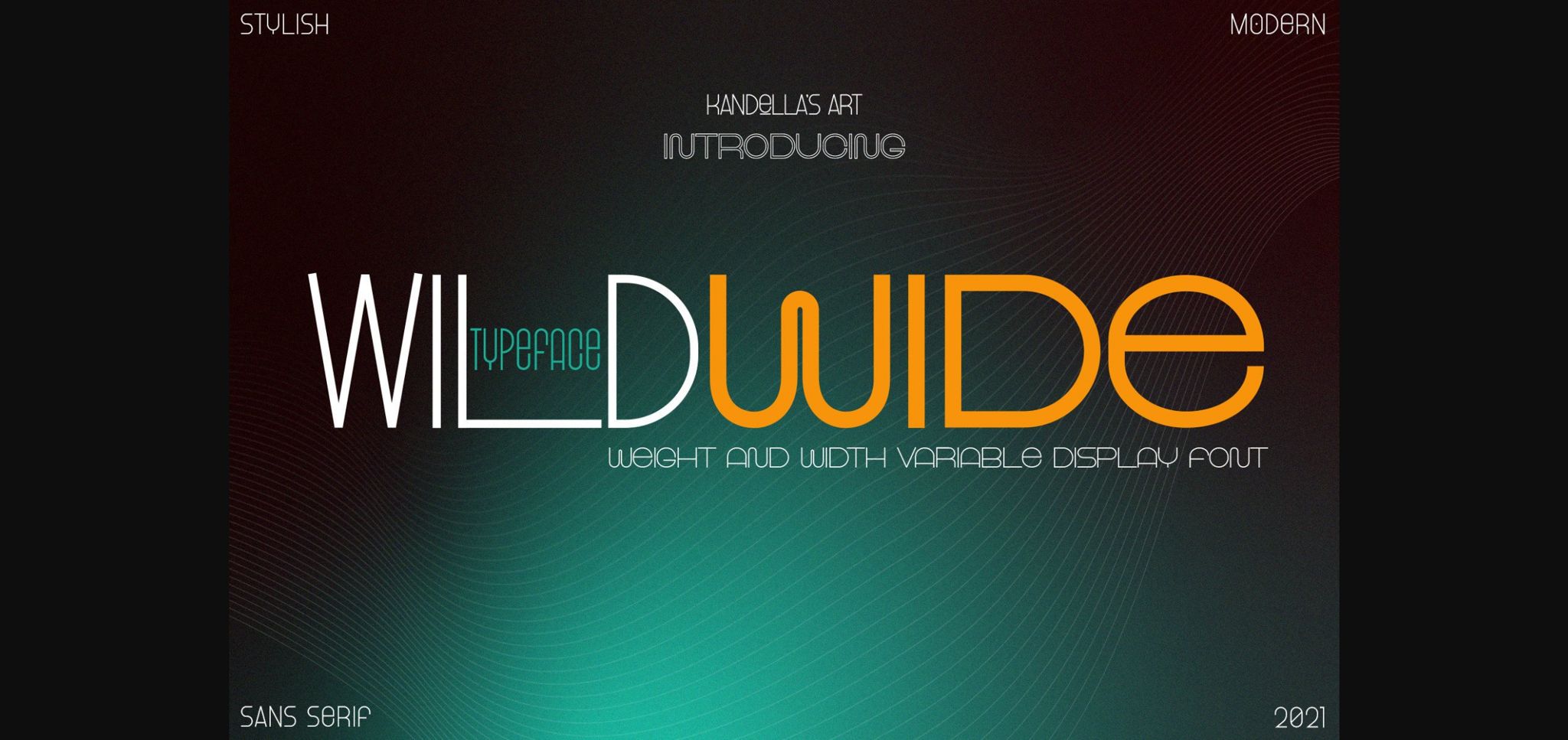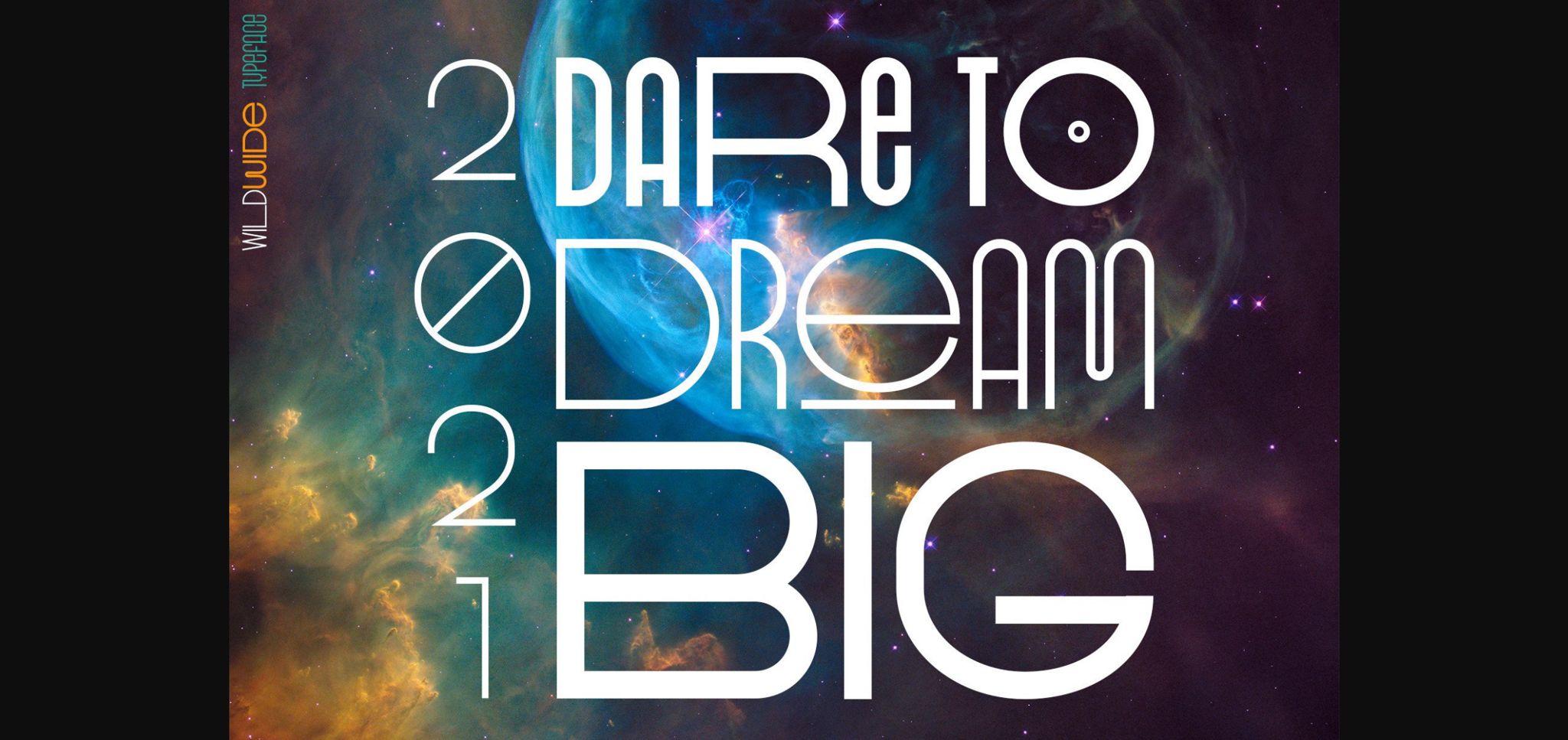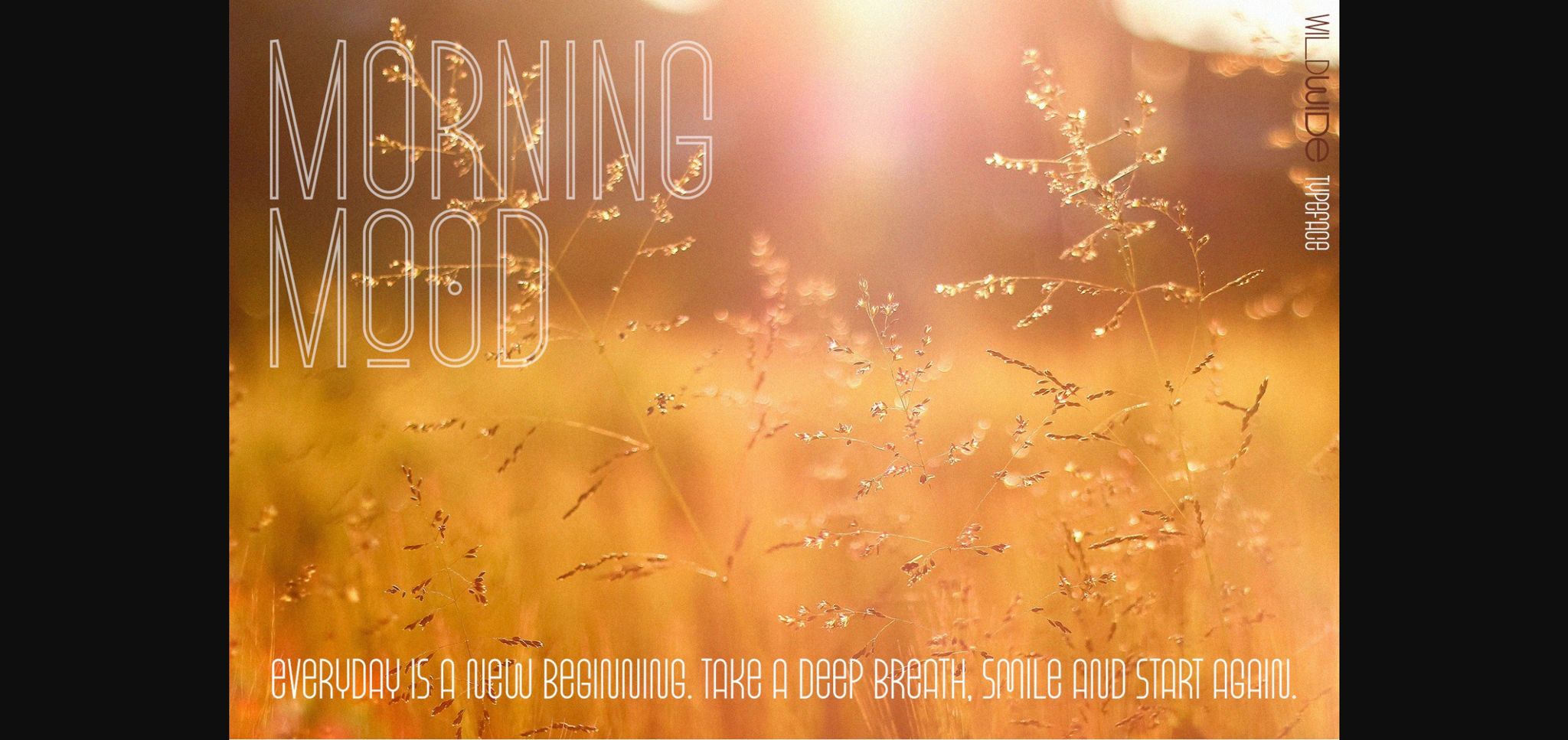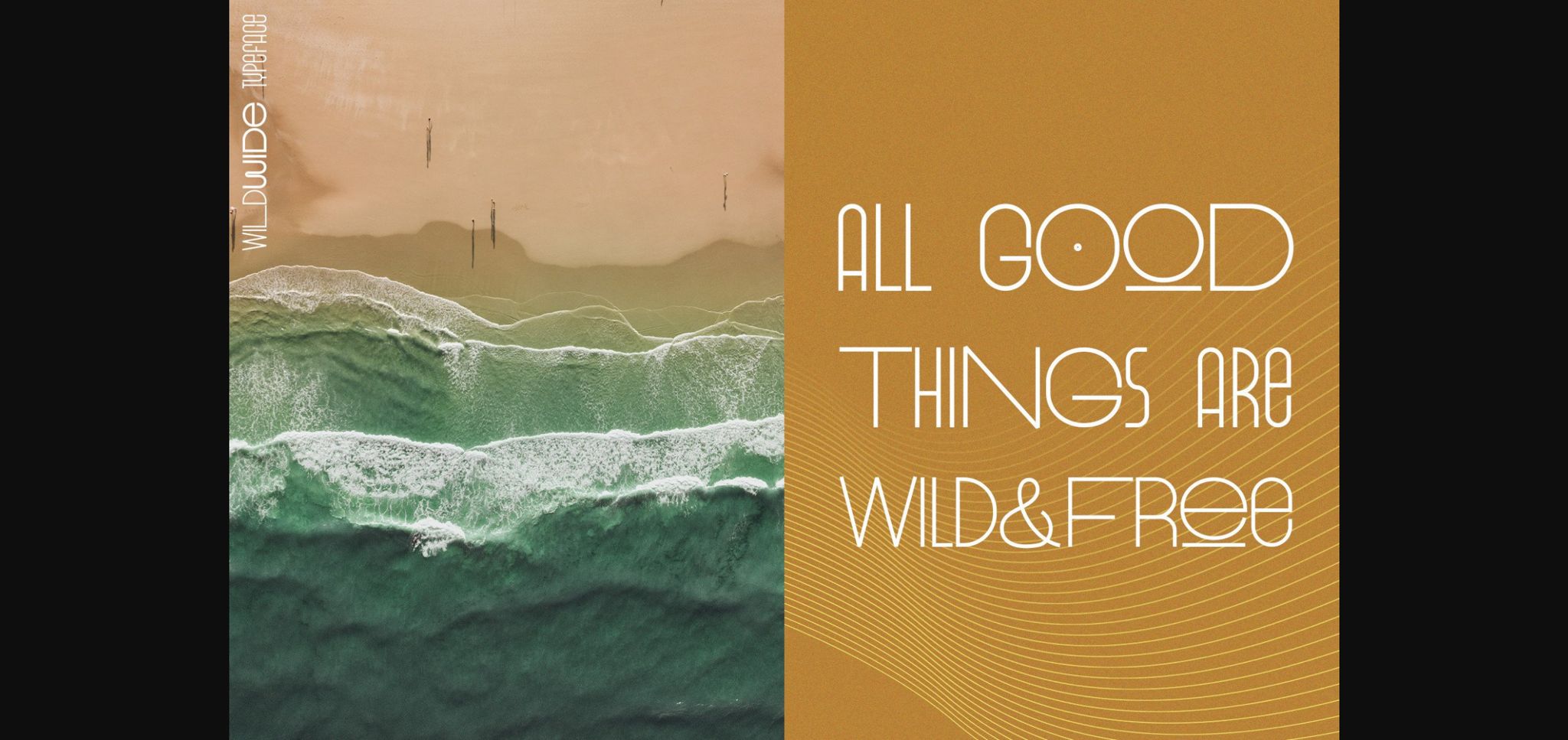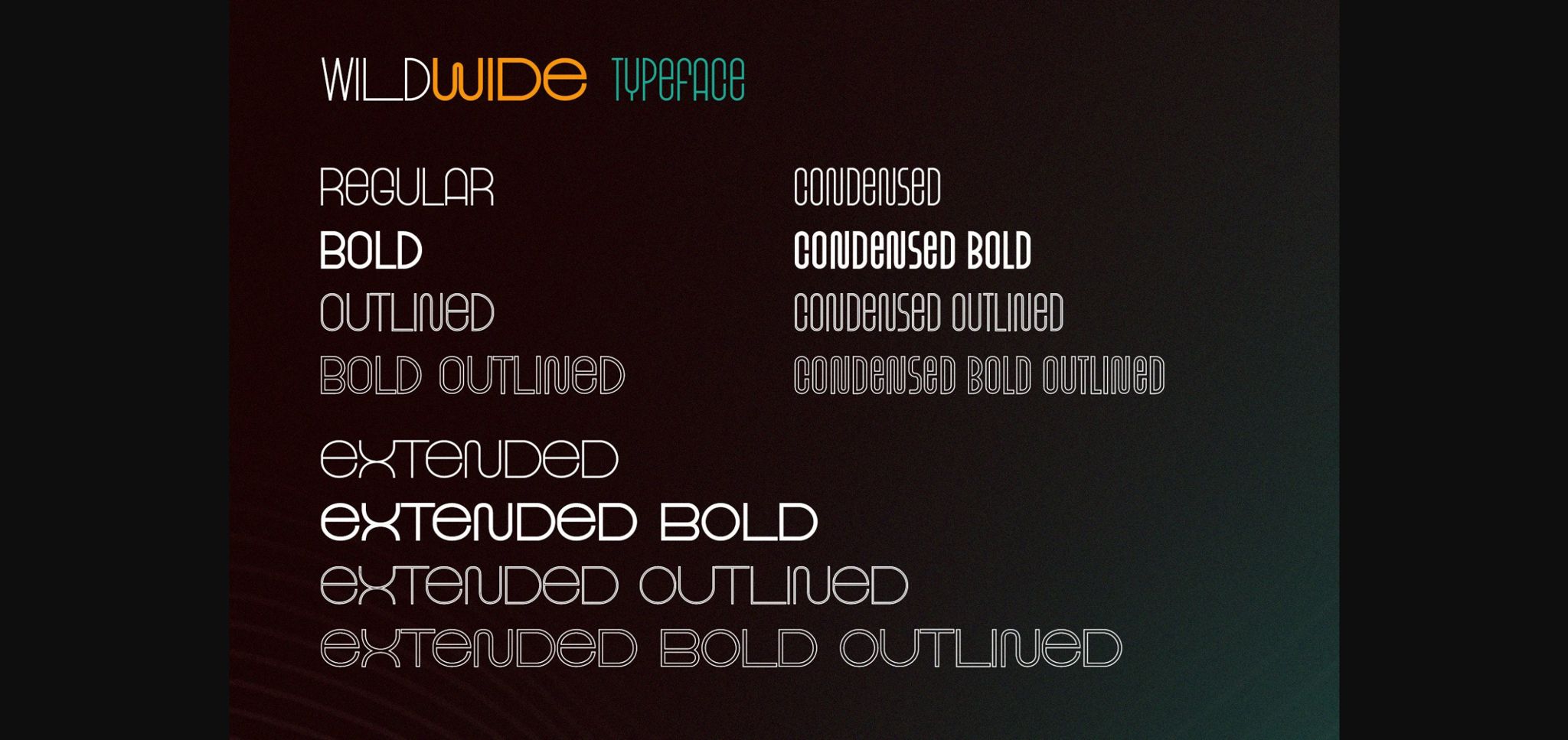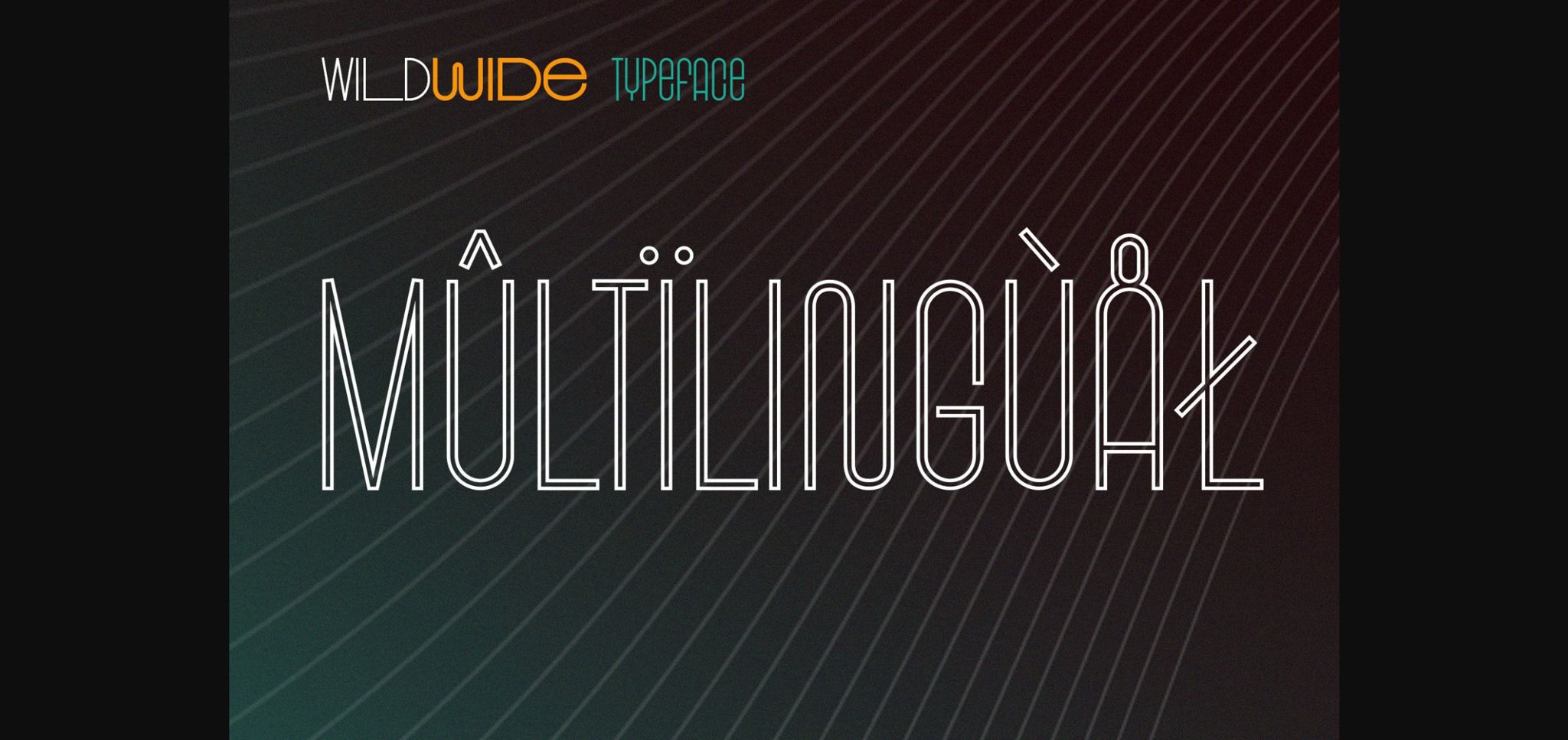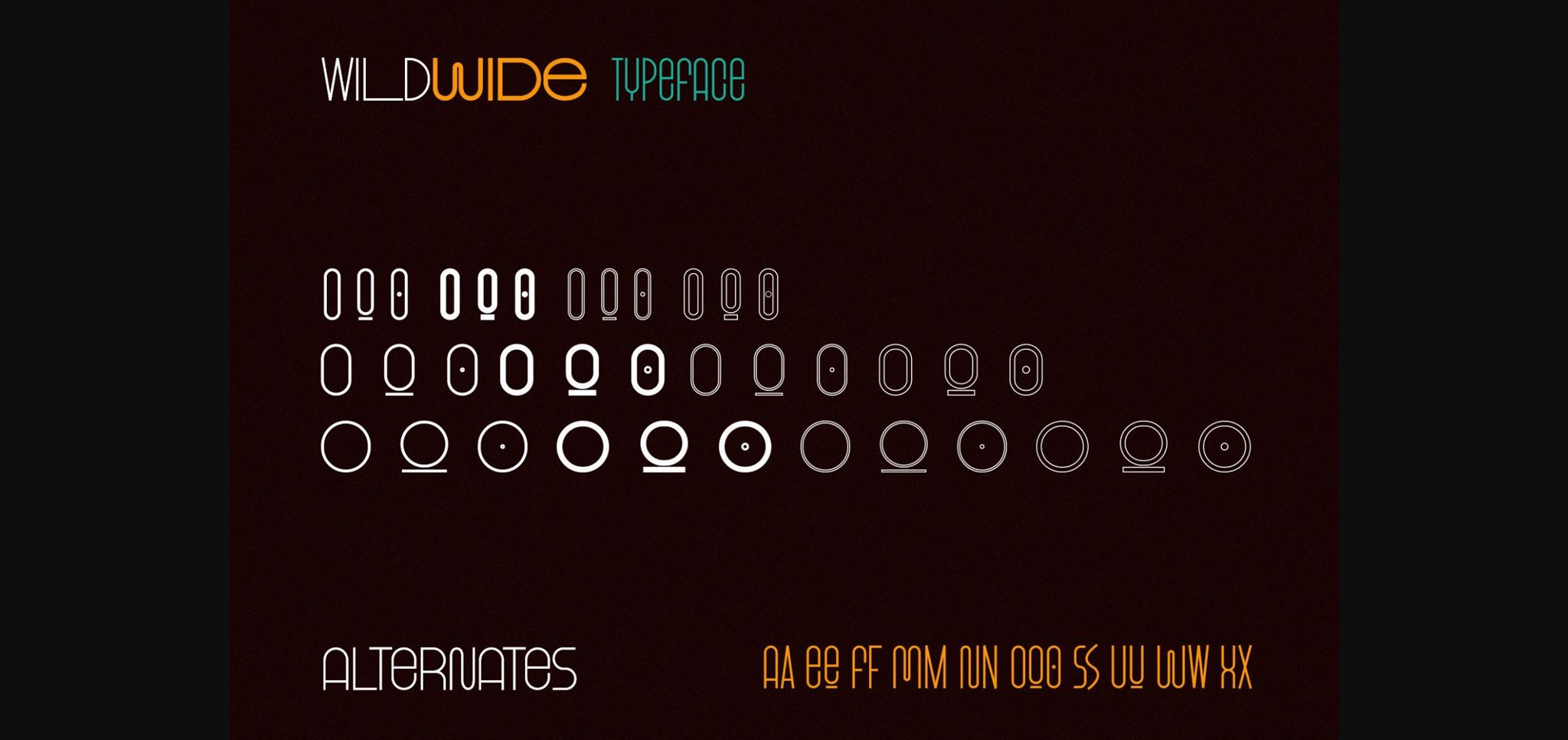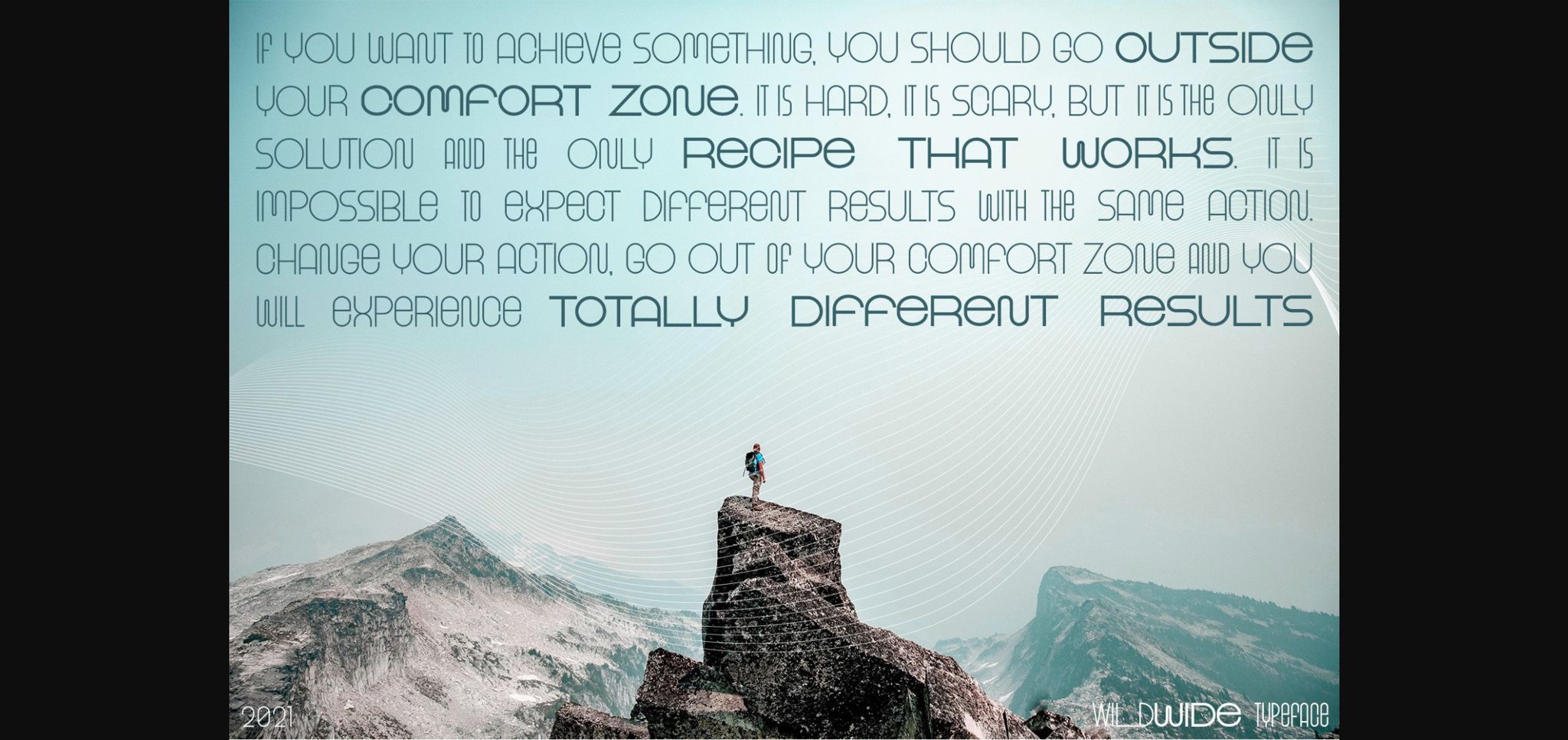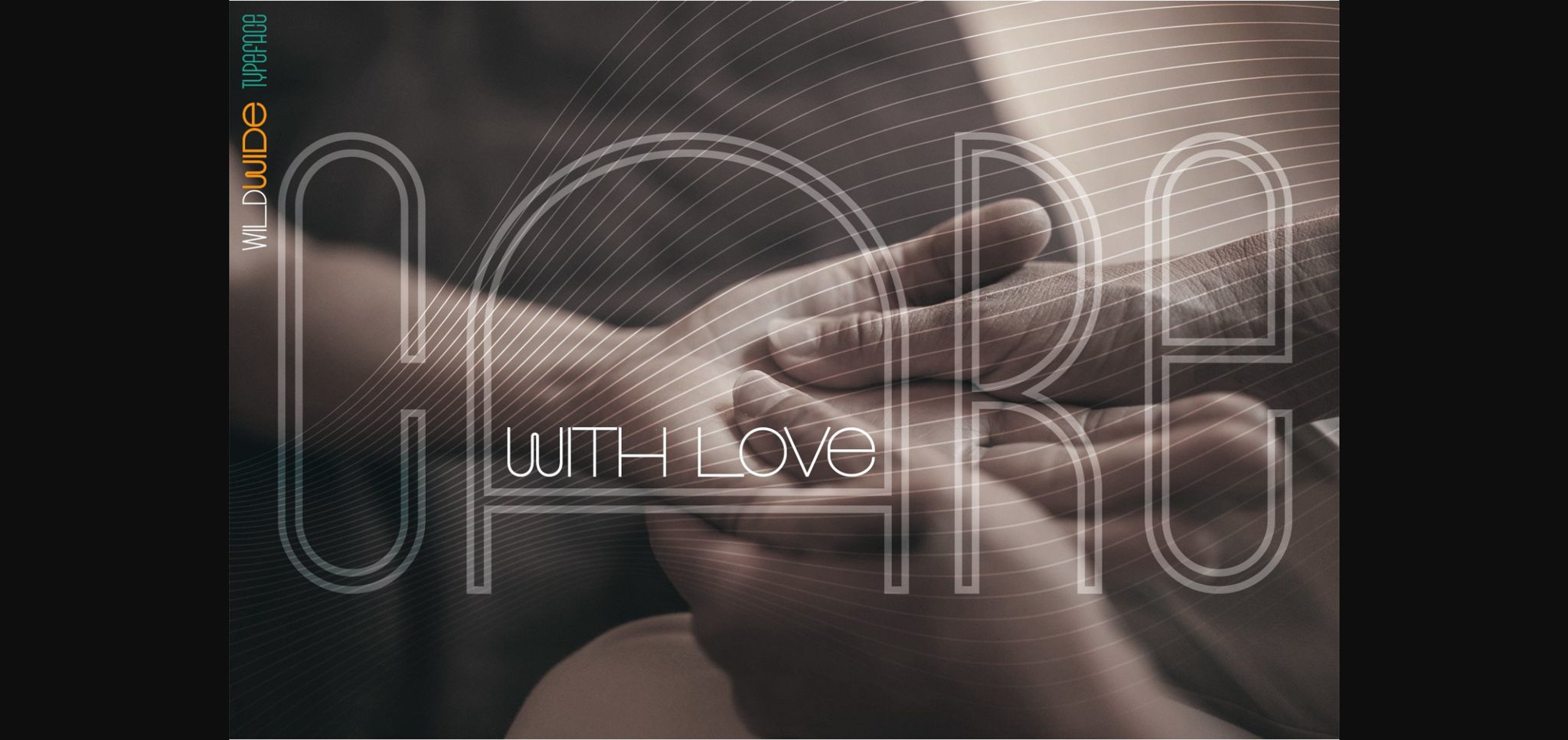
Wild Wide Font
About Wild Wide Font
Wild Wide – weight and width variable sans serif font with uppercase glyphs. This font is perfect for all kinds of designs: social media and visual content, web and UI design, posters and art collage, branding and logos, wedding typography, and modern hi-tech design.